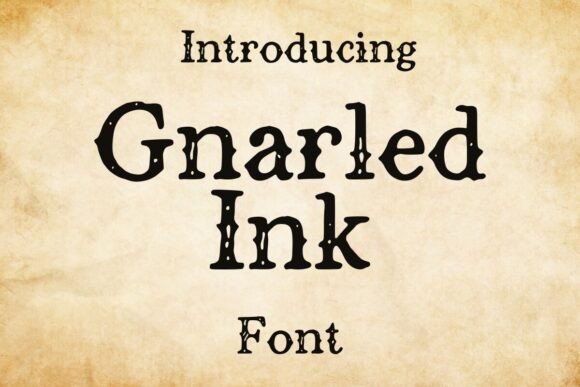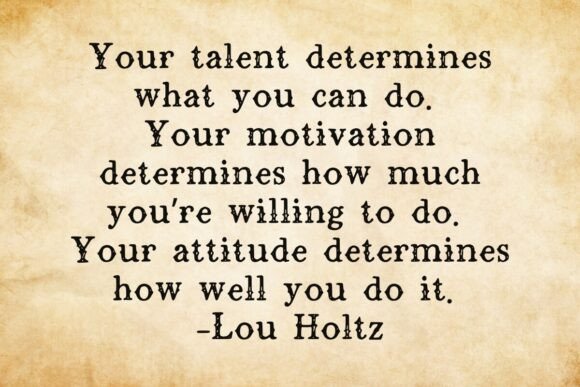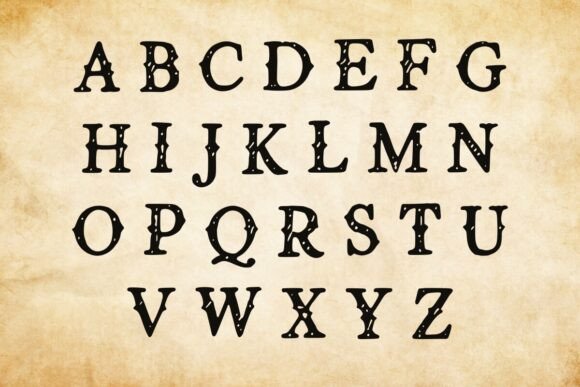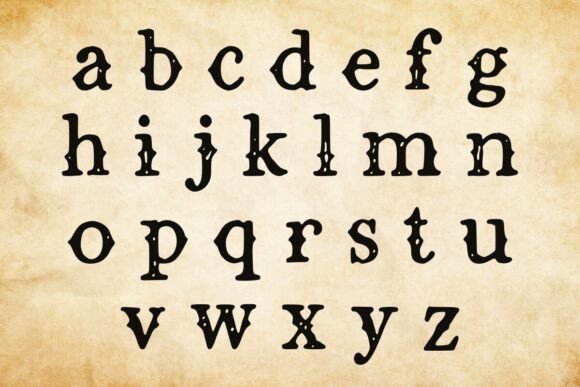
Gnarled Ink Font: Rustic Typography for Fantasy & Halloween Designs
About the Gnarled Ink Font
Introducing the Gnarled Ink Font, a beautifully crafted typeface designed to elevate your creative projects. Gnarled Ink is a rustic, weathered typeface that evokes the charm of old parchment, tattered manuscripts, and eerie folklore. Each letter is adorned with rough edges, giving it a hand-carved look reminiscent of forgotten spellbooks or vintage signage. Perfect for fantasy themes, Halloween designs, or historical-inspired projects, Gnarled Ink combines character with legibility to leave a lasting impression.
Gnarled Ink excels in headline treatments, short text blocks on posters, and branding applications where a strong, rustic feel is desired. Its unique texture makes it ideal for packaging designs evoking a vintage or handcrafted aesthetic, particularly for products like craft beers, artisanal goods, or books related to fantasy or history. Avoid using it for body text or long paragraphs; its rugged texture can hinder readability at smaller sizes.
This typeface’s personality is bold and slightly mysterious. It projects a sense of age and authenticity, making it unsuitable for projects requiring a clean, modern, or minimalist feel.
For effective pairings, consider complementing Gnarled Ink with a clean sans-serif like Open Sans for body copy or a more refined serif like Garamond for a touch of elegance. A playful script font could add contrast and enhance the vintage feel for certain applications.